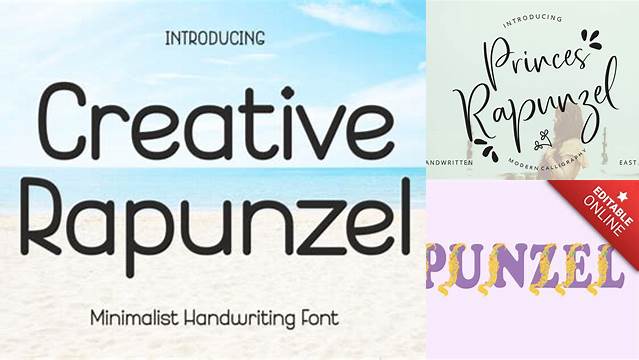
Rapunzel Font: Free Download For Your Creative Projects
Hey guys! Ever been captivated by the magical world of Disney's Tangled and the enchanting character of Rapunzel? Well, you're not alone! And if you're anything like me, you probably love the whimsical and elegant fonts that evoke that fairy-tale feeling. Today, we're diving deep into the world of Rapunzel fonts, exploring where you can find them for free and how to use them to add a touch of magic to your projects.
What is the Rapunzel Font?
Before we get started, let's clarify what we mean by "Rapunzel font." There isn't an officially licensed font directly named after Rapunzel or the movie Tangled. However, the fonts we're talking about are those that capture the essence of the movie's aesthetic: elegant, whimsical, and slightly vintage. Think flowing scripts, playful serifs, and fonts that just scream "fairy tale!" These fonts are perfect for invitations, posters, branding, and any other project where you want to add a touch of Disney magic. Understanding the characteristics of these fonts is key to finding the perfect one for your needs.
Where to Find Free Rapunzel-Inspired Fonts
Okay, let's get to the good stuff – where to find these gorgeous fonts without breaking the bank! The internet is a treasure trove of free resources, but it's essential to know where to look and how to ensure you're getting a safe and legal download. I always say, a little research goes a long way! So, where can you find these gems? Let’s explore the best options:
H2: Free Font Websites
H3: DaFont
DaFont is a massive online archive with thousands of fonts, many of which are free for personal use. You can find various script and display fonts that perfectly fit the Rapunzel aesthetic. When browsing DaFont, use keywords like "script," "calligraphy," "fairy tale," and "decorative" to narrow your search. Guys, be sure to read the license information for each font carefully. Some fonts are free for personal use only, while others allow commercial use as well. This is super important to avoid any copyright issues down the line. The search functionality is pretty intuitive, allowing you to preview the font with your own text, which is a huge plus!
H3: Google Fonts
Google Fonts is another fantastic resource offering a wide selection of free, open-source fonts. This means they're free for both personal and commercial use – score! While you might not find a font explicitly labeled "Rapunzel," you can definitely discover some beautiful script and serif fonts that evoke the same feeling. Fonts like "Playfair Display," "Great Vibes," and "Pacifico" are excellent starting points. Google Fonts is amazing because the fonts are optimized for web use, ensuring they look great on any device. Plus, integrating them into your website is a breeze.
H3: Font Squirrel
Font Squirrel is a great option for finding high-quality fonts that are free for commercial use. They hand-select their fonts, ensuring a certain level of quality and legality. This is a huge reassurance, guys, because you know you're getting fonts that are safe to use in your projects. Their search filters are also super helpful, allowing you to narrow your search by style, weight, and more. Just like DaFont, always double-check the license before using a font in a commercial project. Font Squirrel often features unique and less common fonts, making it a great place to discover something special for your project.
H3: Open Source Licenses
Open source licenses, like the SIL Open Font License (OFL), are super generous. They typically allow you to use the font for both personal and commercial projects, and even modify and redistribute it. Google Fonts primarily uses the OFL, which is why it's such a popular choice for designers. When you see a font with an open-source license, you can breathe a sigh of relief knowing you have a lot of flexibility in how you use it.
H3: Checking the Fine Print
Seriously, guys, don't skip this step! Before you download any font, take a moment to read the license information provided on the website. It might seem tedious, but it's way better than dealing with copyright issues later. Look for terms like "free for personal use," "free for commercial use," or the specific license name, like OFL. If you're unsure about something, it's always best to err on the side of caution and contact the font designer or the website for clarification.
H2: Key Characteristics of Rapunzel-Inspired Fonts
H3: Elegant Script Fonts
Script fonts, with their flowing, handwritten style, are a perfect fit for the Rapunzel aesthetic. They evoke a sense of romance, elegance, and whimsy, making them ideal for invitations, wedding designs, and anything that needs a touch of fairy-tale charm. When choosing a script font, look for those with delicate strokes and graceful curves. Some fonts might have extra flourishes and swashes, which can add an extra layer of elegance. Remember, readability is key, so choose a script font that is easy to read, especially in larger blocks of text. Script fonts are the epitome of Rapunzel's personality and her world.
H3: Playful Serif Fonts
Serif fonts, with their small decorative strokes at the ends of the letters, can also capture the Rapunzel vibe. Look for serifs that have a playful or slightly vintage feel. Fonts with rounded serifs or a touch of hand-drawn quality can work wonders. These fonts are great for headings, titles, and body text, offering a more structured yet still whimsical look. Serif fonts bring a touch of timelessness, perfect for conveying the enduring magic of fairy tales.
H3: Decorative and Display Fonts
Decorative and display fonts are designed to be eye-catching and unique. They often have elaborate designs and unusual shapes, making them perfect for headings, logos, and other prominent elements. When choosing a decorative font, think about what elements evoke the Rapunzel story – perhaps fonts with floral details, swirling lines, or a hand-lettered feel. However, use these fonts sparingly, as they can be difficult to read in large blocks of text. Decorative fonts are the perfect way to add a unique flourish and capture the essence of Rapunzel’s world.
H2: Using Rapunzel Fonts in Your Projects
H3: Invitations and Cards
Imagine receiving an invitation with a beautiful, flowing script font that instantly transports you to a magical kingdom! Rapunzel-inspired fonts are perfect for invitations, greeting cards, and thank-you notes. Pair a delicate script font for the names and event details with a playful serif font for the body text. Use soft, romantic colors and maybe even add some floral illustrations to complete the look. Guys, these fonts can truly make your invitations stand out and create a lasting impression.
H3: Posters and Banners
If you're designing a poster or banner, a Rapunzel font can add a touch of whimsy and charm. Use a bold, decorative font for the title and a legible serif or script font for the body text. Think about the overall message you want to convey – are you promoting a fairy-tale-themed event, a children's party, or a creative workshop? The font choice should reflect the tone and style of your event. Remember to balance elegance with readability, especially for banners that people will be viewing from a distance.
H3: Branding and Logos
A well-chosen font can be a powerful tool for branding. If your brand aims for an elegant, whimsical, or fairy-tale aesthetic, a Rapunzel-inspired font can be a perfect fit. Consider using a script font for your logo or a decorative font for your website headings. Be sure to choose a font that is consistent with your brand's overall personality and target audience. Remember, your font is part of your brand identity, so make sure it conveys the right message. A good font can elevate your branding and make it more memorable.
H2: Font Pairing Tips
H3: Combining Script and Serif Fonts
The key to great typography is font pairing – finding fonts that complement each other and create a harmonious visual effect. One classic combination is pairing a script font with a serif font. The script font adds elegance and personality, while the serif font provides structure and readability. For example, you could pair a flowing script font like "Great Vibes" with a classic serif font like "Playfair Display." The contrast between the two fonts creates visual interest and makes your design more dynamic.
H3: Using Different Weights and Styles
Another way to create visual hierarchy and interest is to use different weights and styles of the same font family. For example, you could use the bold version of a serif font for headings and the regular version for body text. This creates a subtle but effective contrast that makes your design more readable and engaging. Experiment with different combinations to see what works best for your project. Remember, consistency is key, so stick to a limited number of font styles and weights within your design.
H3: Ensuring Readability
No matter how beautiful a font is, readability should always be your top priority. If your text is difficult to read, your message will get lost. Choose fonts that are clear and legible, especially for body text. Consider factors like font size, line height, and letter spacing to optimize readability. Avoid using overly decorative or ornate fonts for large blocks of text. Test your designs on different screens and devices to ensure they look good in various contexts. Readability is the foundation of good design, so don't sacrifice it for aesthetics.
H2: Installing Fonts on Your Computer
H3: Windows Installation
Installing fonts on Windows is a straightforward process. Once you've downloaded your font file (usually in .ttf or .otf format), simply right-click on the file and select "Install." Windows will automatically install the font, and it will be available in your applications. You can also copy the font file to the Fonts folder in your Windows directory (usually located at C:\Windows\Fonts). This method allows you to install multiple fonts at once. After installation, you might need to restart your applications for the new fonts to appear in the font list. It's a quick and easy process that opens up a world of creative possibilities.
H3: Mac Installation
Installing fonts on a Mac is equally simple. You can double-click on the font file, and it will open in Font Book, Apple's font management application. Click the "Install Font" button, and the font will be installed on your system. Alternatively, you can drag and drop the font file into the Fonts folder in your Library directory (located at /Library/Fonts or ~/Library/Fonts). Just like Windows, you might need to restart your applications for the new fonts to appear. Font Book makes managing fonts on a Mac a breeze.
H3: Troubleshooting Installation Issues
Sometimes, things don't go quite as planned, and you might encounter issues during font installation. If a font doesn't appear in your applications after installation, try restarting your computer. This often resolves minor glitches. If you're still having trouble, make sure the font file is not corrupted and that it's in a compatible format (.ttf or .otf). You can also try clearing your font cache, which can sometimes resolve conflicts. If all else fails, consult the font's documentation or the website where you downloaded it for specific troubleshooting tips. Don't give up, guys, there's usually a simple solution to font installation problems!
H2: Font Management Tools
H3: Font Managers for Windows
If you work with a lot of fonts, a font manager can be a lifesaver. These tools help you organize, preview, and activate fonts, making it easier to find the perfect font for your project. Some popular font managers for Windows include FontBase, NexusFont, and MainType. These tools allow you to create font sets, preview fonts side-by-side, and temporarily activate fonts without permanently installing them. Font managers streamline your workflow and prevent font overload.
H3: Font Managers for Mac
Mac users have access to Font Book, but there are also third-party font managers that offer more advanced features. FontBase is a popular cross-platform option, and there are Mac-specific tools like RightFont and Typeface. These font managers provide similar features to their Windows counterparts, helping you organize, preview, and manage your font collection. A good font manager can save you time and frustration when working with fonts.
H3: Cloud-Based Font Services
Cloud-based font services like Adobe Fonts and Google Fonts offer a convenient way to access and manage fonts across multiple devices. Adobe Fonts is integrated with Adobe Creative Cloud, while Google Fonts is a free and open-source option. These services allow you to browse and activate fonts directly within your design applications. They also ensure that your fonts are always up-to-date and available wherever you are. Cloud-based font services are a game-changer for designers who work on multiple devices or collaborate with others.
H2: Creating Your Own Rapunzel-Inspired Designs
H3: Designing Invitations
Ready to create your own magical invitations? Start by choosing a Rapunzel-inspired font for the main text, such as the names and event details. Pair it with a complementary font for the body text, ensuring readability. Use soft, romantic colors like lavender, gold, and blush pink. Add floral illustrations or other decorative elements to enhance the fairy-tale theme. Consider using textured paper or a special printing technique to add a touch of luxury. Designing invitations is a chance to unleash your creativity and set the tone for your event.
H3: Designing Posters
Designing a poster requires a different approach. Choose a bold and eye-catching font for the title, ensuring it's legible from a distance. Use a clear and concise font for the body text, providing essential information about the event or product. Incorporate visuals that support the Rapunzel theme, such as lanterns, flowers, or silhouettes. Consider the overall composition and use whitespace effectively to create a balanced and visually appealing design. A well-designed poster grabs attention and communicates your message effectively.
H3: Designing Social Media Graphics
Social media graphics need to be visually engaging and optimized for different platforms. Use a Rapunzel-inspired font to add a touch of whimsy to your graphics. Keep the text concise and easy to read on small screens. Use high-quality images and videos that capture the essence of the Rapunzel story. Consider using animation or motion graphics to make your posts stand out. Social media graphics are a powerful way to connect with your audience and promote your brand or event.
H2: Where to Learn More About Typography
H3: Online Courses and Tutorials
The internet is a treasure trove of resources for learning about typography. Websites like Skillshare, Udemy, and Coursera offer a wide range of courses on typography fundamentals, font pairing, and design principles. YouTube is another great resource, with countless tutorials and videos on typography techniques. These online resources allow you to learn at your own pace and from the comfort of your own home. Investing in typography knowledge is an investment in your design skills.
H3: Books on Typography
For a more in-depth understanding of typography, consider reading books on the subject. "The Elements of Typographic Style" by Robert Bringhurst is a classic guide to typography principles. "Thinking with Type" by Ellen Lupton is another excellent resource that covers a wide range of typography topics. These books provide a comprehensive overview of typography, from its history to its practical application. Books offer a wealth of knowledge and can help you develop a deeper appreciation for typography.
H3: Typography Blogs and Websites
Staying up-to-date with the latest trends and techniques in typography is essential for designers. Numerous blogs and websites are dedicated to typography, offering articles, tutorials, and inspiration. Websites like I Love Typography, Typewolf, and Fonts in Use are great resources for discovering new fonts and learning about typography design. Following these blogs and websites will keep you informed and inspired. Staying current with typography trends ensures your designs remain fresh and relevant.
H2: Legal Considerations for Using Free Fonts
H3: Understanding Copyright Law
Copyright law protects the intellectual property of font designers, just like it protects the work of authors, musicians, and artists. Using a font without the proper license is a violation of copyright law and can result in legal consequences. It's crucial to understand the terms of the font license before using it in your projects. Always check the license information provided by the font designer or the website where you downloaded the font. Respecting copyright law is essential for ethical design practices.
H3: Avoiding Font Piracy
Font piracy is the unauthorized distribution and use of copyrighted fonts. Downloading fonts from unofficial sources or sharing fonts with others is a form of piracy. Not only is it illegal, but it also undermines the work of font designers and the font industry as a whole. Always download fonts from reputable sources and respect the terms of the font license. Supporting font designers helps ensure the continued creation of high-quality fonts.
H3: Best Practices for Font Usage
To ensure you're using fonts legally and ethically, follow these best practices: Always download fonts from reputable sources. Read and understand the font license before using the font. If you're unsure about the terms of the license, contact the font designer or the website where you downloaded the font for clarification. Keep track of the fonts you're using and their licenses. Purchase commercial licenses if you need to use a font for commercial projects. By following these practices, you can use fonts with confidence and avoid legal issues. Responsible font usage is a cornerstone of professional design.
H2: The Future of Fonts and Typography
H3: Variable Fonts
Variable fonts are a relatively new font technology that allows for greater flexibility and customization. Instead of having separate font files for different weights and styles, a variable font contains all the information in a single file. This allows designers to adjust font properties like weight, width, and slant with fine-grained control. Variable fonts are more efficient and offer a wider range of design possibilities. Variable fonts are the future of typography, offering unprecedented flexibility and performance.
H3: OpenType Features
OpenType is a font format that supports advanced typographic features, such as ligatures, swashes, and contextual alternates. These features allow designers to create more sophisticated and refined typography. OpenType fonts can enhance readability and add a touch of elegance to your designs. Learning how to use OpenType features can elevate your typography skills and make your designs stand out. OpenType features unlock the full potential of typography.
H3: The Evolution of Typography
Typography is constantly evolving, driven by technological advancements and design trends. New font styles and techniques are emerging all the time. Staying informed about these developments is essential for designers who want to remain at the forefront of their field. Explore new fonts, experiment with different typographic styles, and embrace the ever-changing landscape of typography. The evolution of typography is a continuous journey of learning and discovery.
H2: Rapunzel Font Alternatives
H3: Similar Script Fonts
If you're looking for script fonts that capture a similar feel to the classic Disney Rapunzel aesthetic, there are several great options. "Aphrodite Pro" is a beautiful script font with elegant flourishes and a romantic touch. "Samantha Script" is another popular choice, known for its versatility and readability. "Carolyna Pro Black" offers a bold and elegant script style, perfect for headings and titles. These fonts provide a variety of script styles to suit different design needs. Exploring script font alternatives expands your typographic toolkit.
H3: Similar Serif Fonts
For serif fonts that evoke the Rapunzel vibe, consider fonts like "Playfair Display," which is known for its elegant serifs and classic feel. "Lora" is another excellent option, offering a balanced and readable serif style. "Merriweather" is a robust and versatile serif font that works well for both headings and body text. These serif fonts provide a range of styles, from classic to modern, to complement your script fonts. Serif font alternatives offer a different perspective on the Rapunzel aesthetic.
H3: Combining Alternatives for Unique Designs
The key to creating unique designs is to combine different font styles and alternatives in unexpected ways. Pair a bold script font with a delicate serif font, or use a decorative font sparingly for emphasis. Experiment with different font weights and sizes to create visual hierarchy. Don't be afraid to mix and match fonts from different families to achieve a distinctive look. Creative font combinations can transform your designs and make them truly memorable.
H2: Where to Get Font Inspiration
H3: Design Blogs and Websites
Design blogs and websites are a great source of font inspiration. Sites like Behance, Dribbble, and Awwwards showcase the work of talented designers from around the world. Exploring these sites can expose you to new fonts, typographic styles, and design techniques. Pay attention to how designers use fonts in their projects and how they combine different fonts to achieve a specific effect. Design blogs and websites are a visual feast for font enthusiasts.
H3: Typography Galleries
Typography galleries are dedicated to showcasing the best examples of typography design. These galleries curate projects that demonstrate exceptional use of fonts and typographic principles. Websites like Typewolf and Fonts in Use feature a wide range of typographic projects, from logos and websites to posters and books. Browsing typography galleries can provide you with valuable insights and inspiration for your own designs. Typography galleries are a curated collection of typographic excellence.
H3: Analyzing Existing Designs
One of the best ways to get font inspiration is to analyze existing designs that you admire. Pay attention to the fonts used in these designs, how they are paired, and how they contribute to the overall aesthetic. Deconstruct the design elements and try to understand the designer's choices. This process can help you develop your eye for typography and inspire your own creative work. Analyzing existing designs is a powerful learning tool for aspiring typographers.
So there you have it, guys! A comprehensive guide to finding and using Rapunzel fonts for free. Remember to always check the license, experiment with font pairings, and most importantly, have fun! Happy designing! 🚀✨